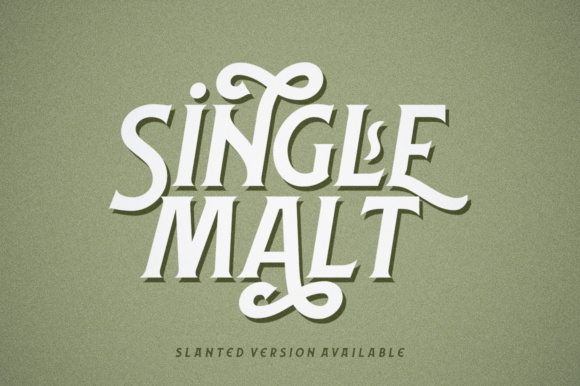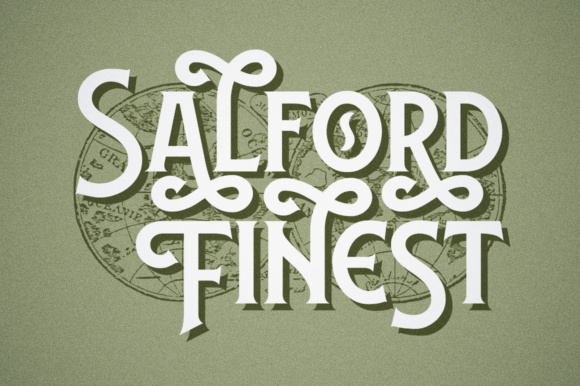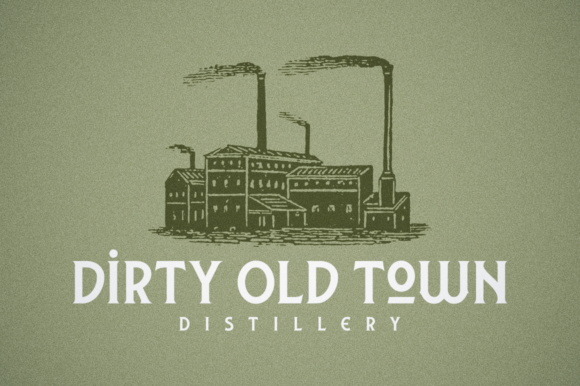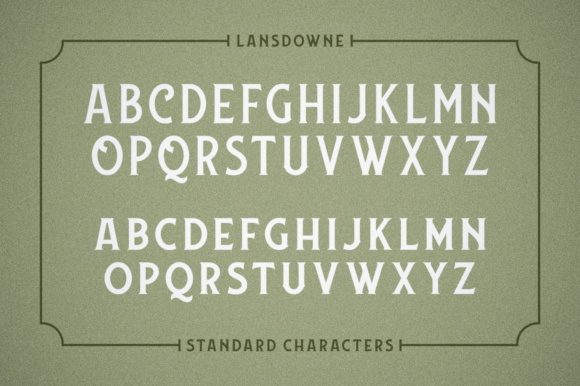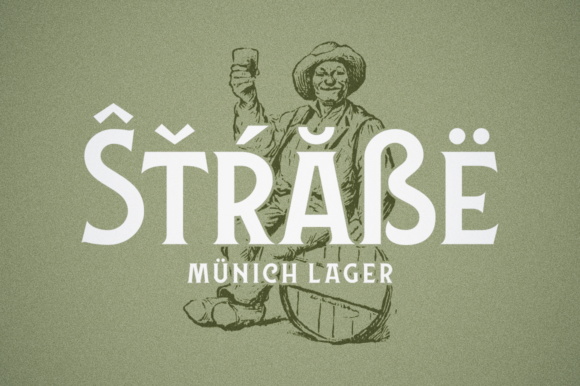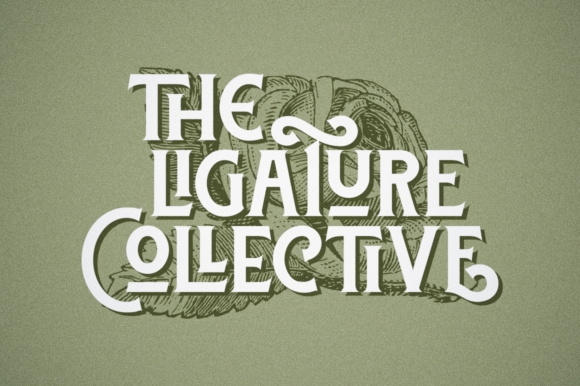
Introduction to Lansdowne Font Font
Fonts play a crucial role in design, and the Lansdowne Font font is a typeface that brings both character and versatility to any project. Whether you’re working on a branding project, a website, or a print design, the Lansdowne Font font offers a unique style that can elevate your work.
Lansdowne is a decorative, vintage all-caps typeface.
Itβs the perfect blend between clean and vintage design, inspired by old-school advertisements Lansdowne comes in 2 variations, Lansdowne & Lansdowne Slanted.
Key Features of Lansdowne Font Font
Why Choose Lansdowne Font Font?
The Lansdowne Font font is more than just a typeface β it’s a design tool that helps you communicate your message with style and clarity. Its unique character set and versatile design make it suitable for a wide range of applications, from elegant invitations to bold headlines.
With its carefully crafted letterforms and balanced proportions, the Lansdowne Font font ensures readability and visual appeal across all mediums.
What makes Lansdowne Font font special?
The Lansdowne Font font stands out with its unique design, exceptional readability, and versatility across various design applications.